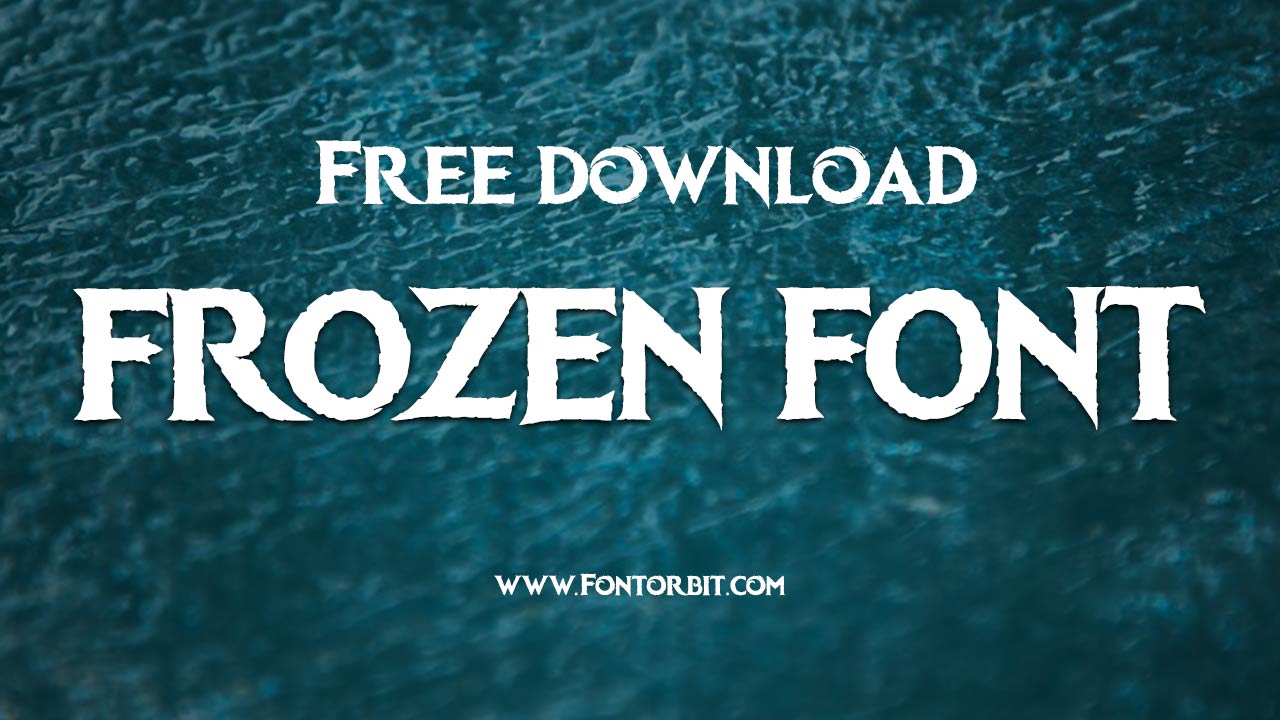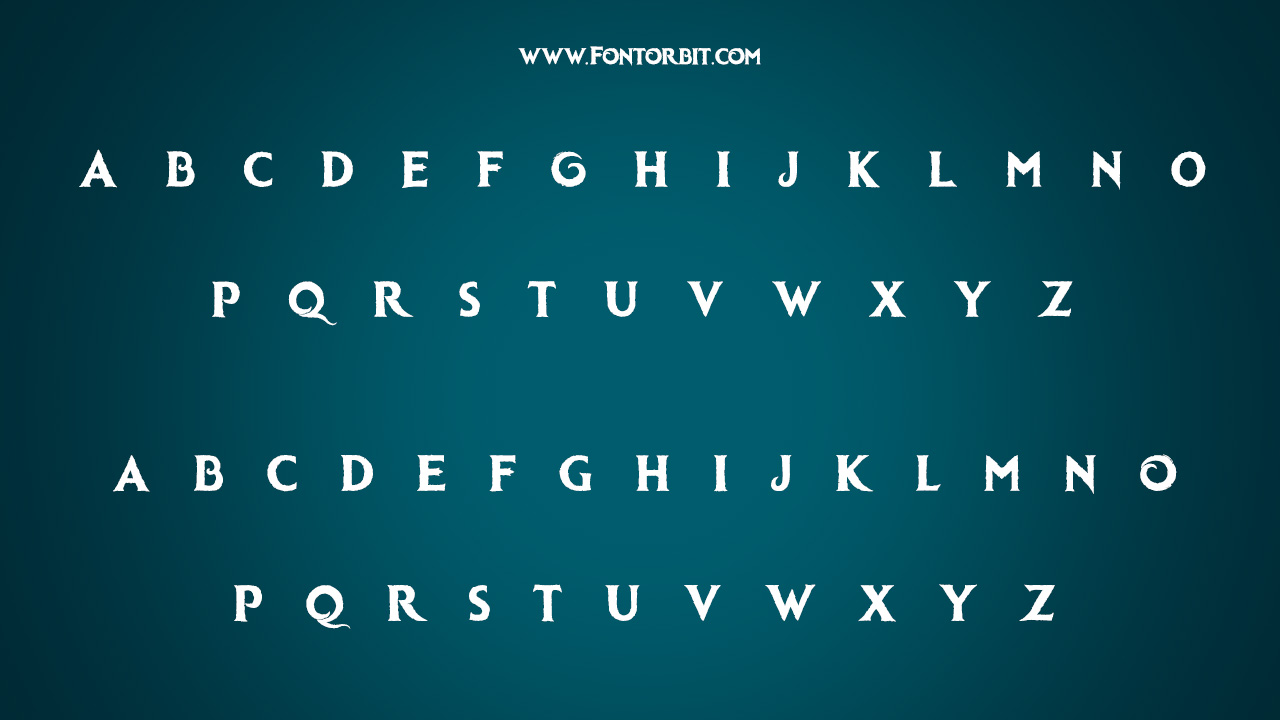
The Frozen font, known as Ice Kingdom, offers a magical and icy appearance reminiscent of the Frozen movie logo. Created by Kustren, this fancy font is designed to capture the enchanting and frosty essence of the popular animated film.
While not an exact replica of the movie’s unique logo, Ice Kingdom provides a close approximation with its wintery aesthetic.
The Frozen font is ideal for designs that need a touch of winter magic. Its enchanting and frosty appearance is perfect for winter-themed projects, movie posters, holiday cards, and merchandise. It adds a layer of whimsy and elegance, making it a great choice for projects inspired by the Frozen movie.
The Ice Kingdom Font emulates the enchanting and frosty style of the Frozen movie, making it perfect for winter-themed designs, promotional materials, and creative projects.
1.What Is The Frozen Font?
The Frozen Font, Ice Kingdom, closely resembles the magical and frosty appearance of the Frozen movie logo, capturing the film’s enchanting essence.
2.Who Designed The Frozen Font?
Kustren created the Ice Kingdom Font to reflect the whimsical and icy theme of the Frozen movie.
3.What Are The Key Features Of The Frozen Font?
It features an elegant and frosty style that mirrors the enchanting appearance of the Frozen logo. This font is ideal for winter-themed designs and creative projects.
4.How To Use Frozen Font In Branding?
Utilize it for winter-themed designs, movie posters, holiday cards, and merchandise to capture the magical essence of the Frozen film.
5.What Are The Alternatives To The Frozen Font?
Similar fonts include Winter Wonderland, Frosty Script, Snowfall Regular, and Glacier Bold, which offer elegant and frosty aesthetics similar to the Frozen branding.